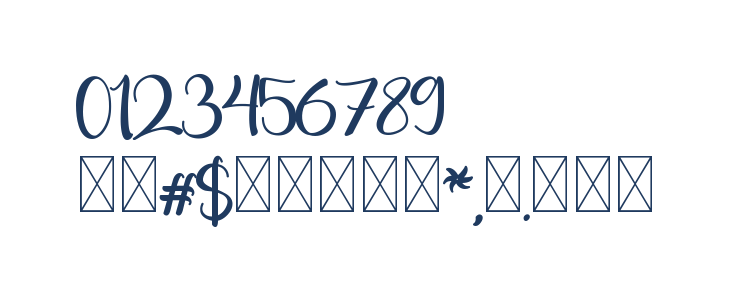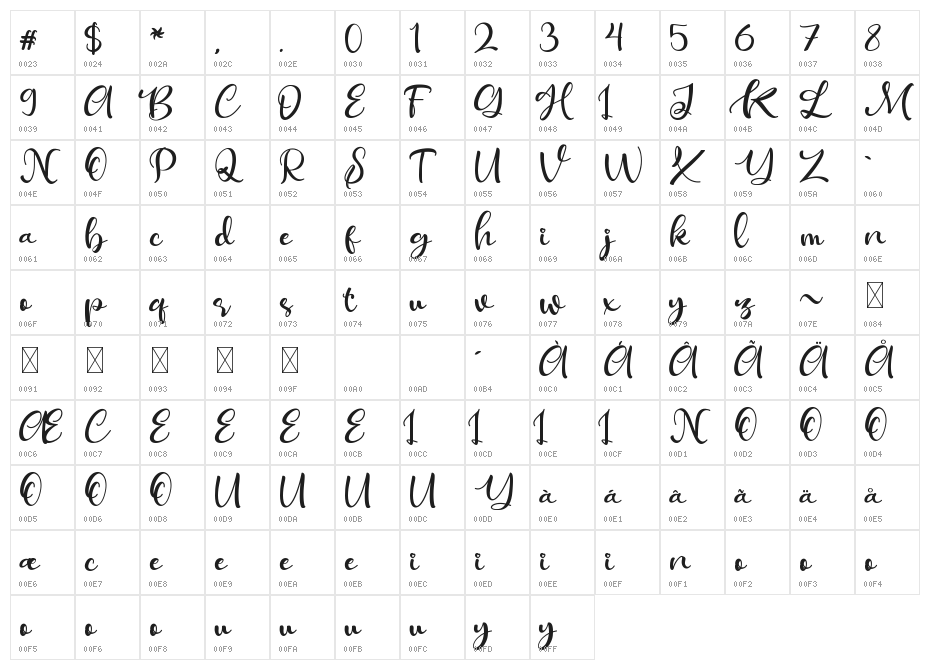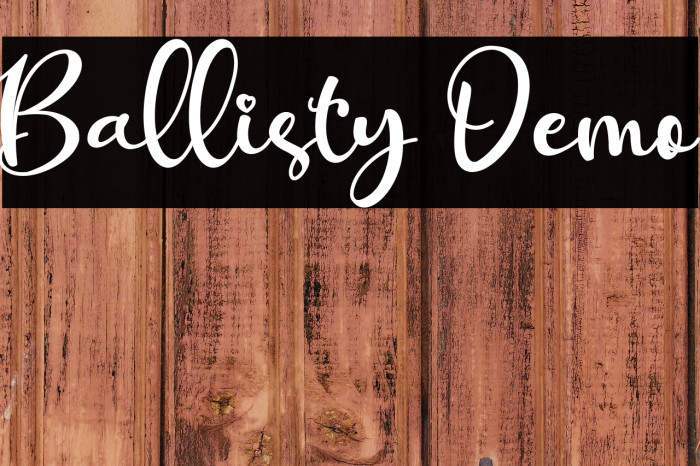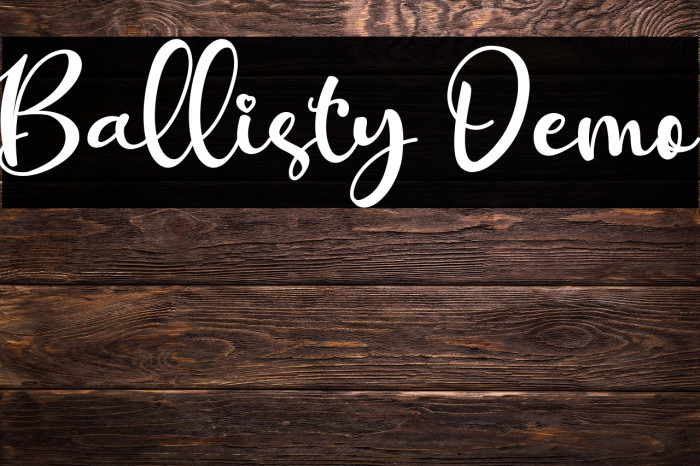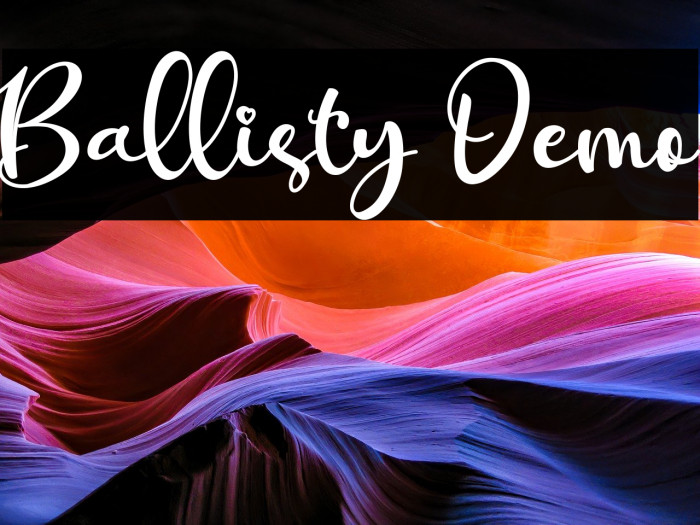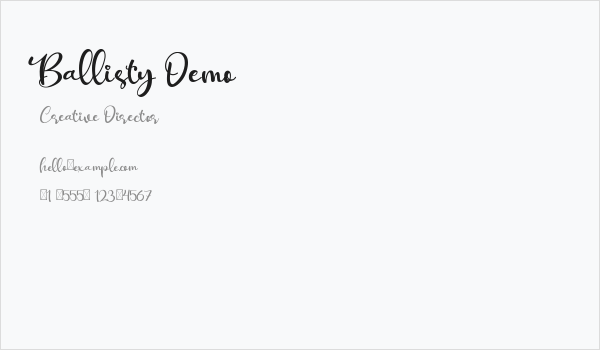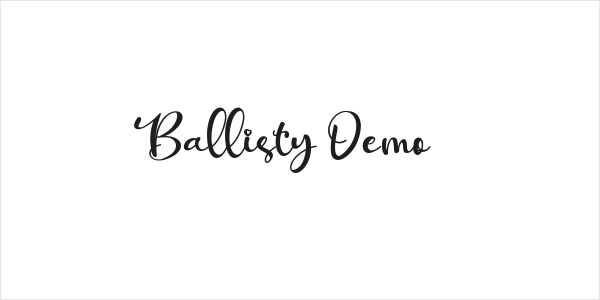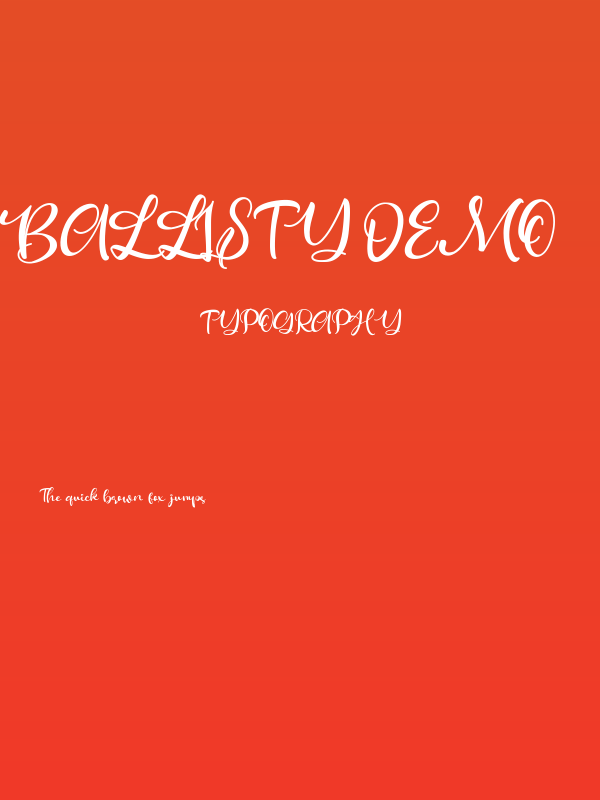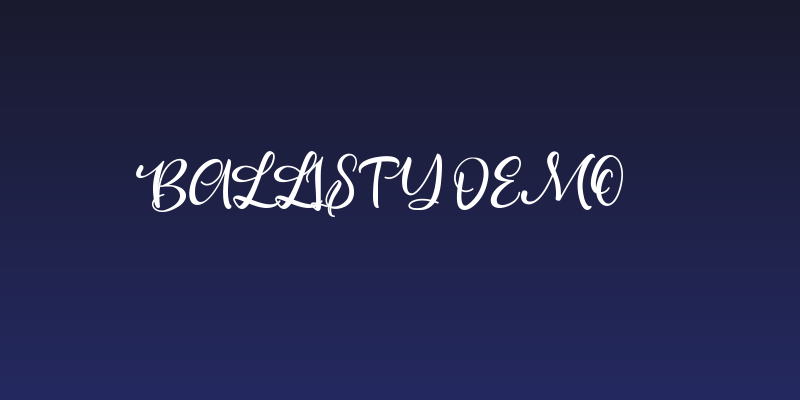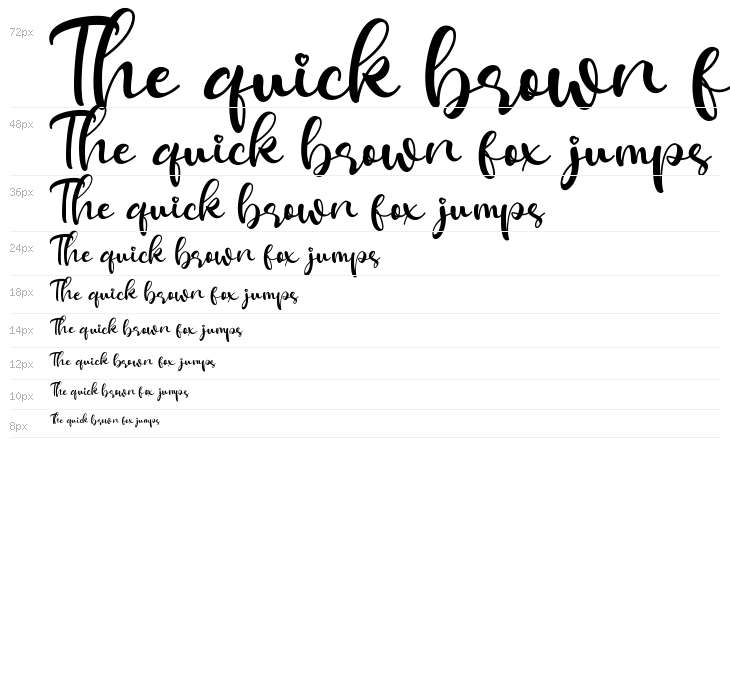
Ballisty Demo Font
Ballisty Demo Description
This font features a lively and expressive script style, characterized by its flowing, interconnected letters and elegant curves. The uppercase letters exhibit a graceful, sweeping motion, while the lowercase letters maintain a consistent, fluid form that enhances readability. The numerals are bold and dynamic, matching the overall aesthetic of the alphabet. Special characters are designed with the same attention to detail, ensuring a cohesive look across all glyphs. The font's playful yet sophisticated appearance makes it ideal for creative projects that require a touch of elegance and personality.